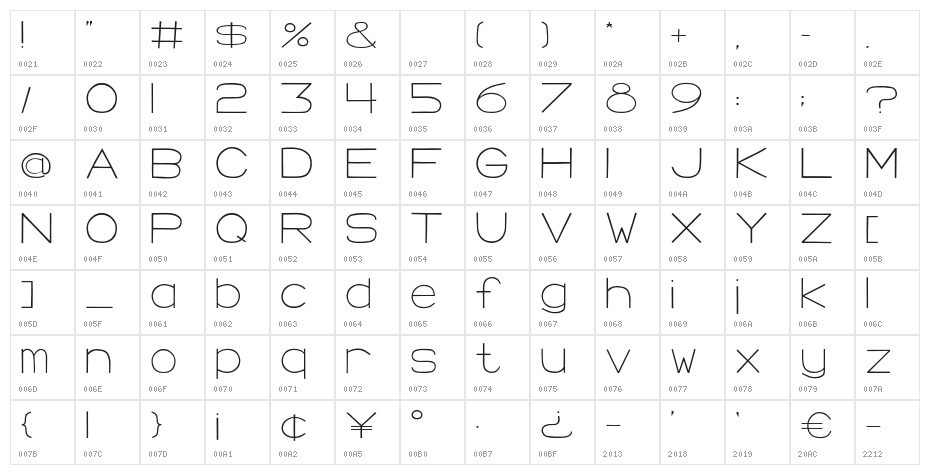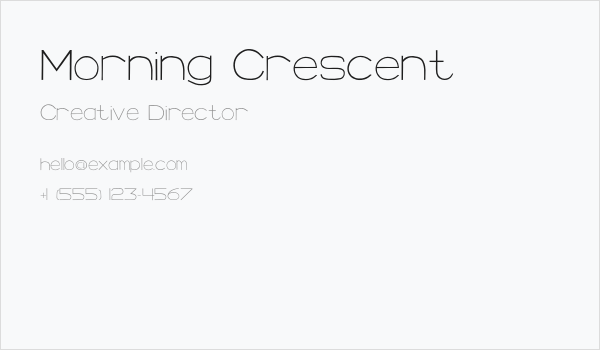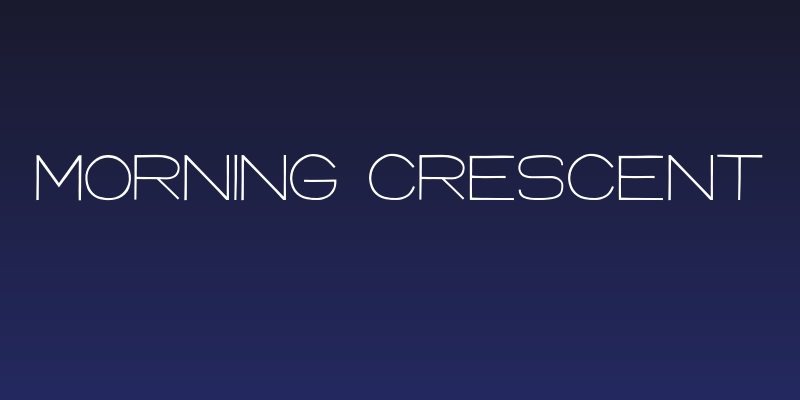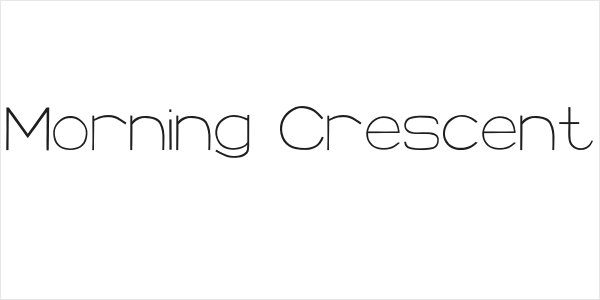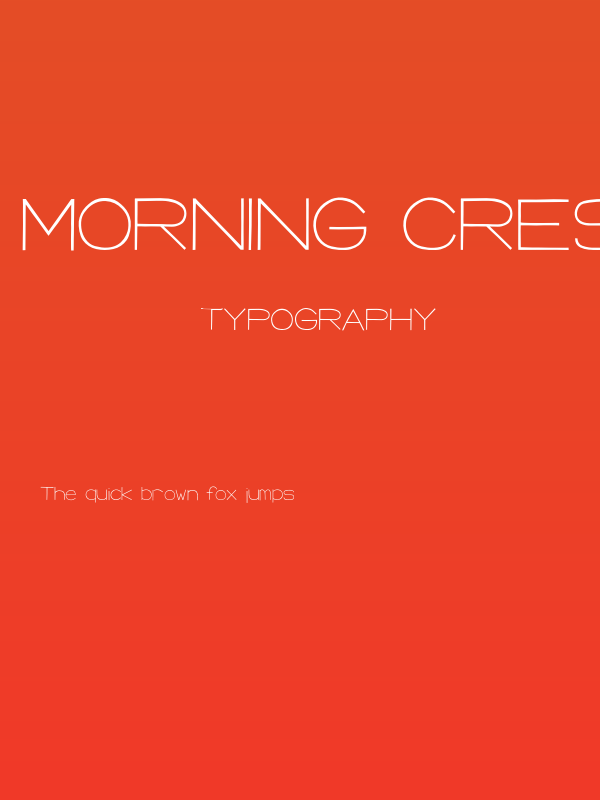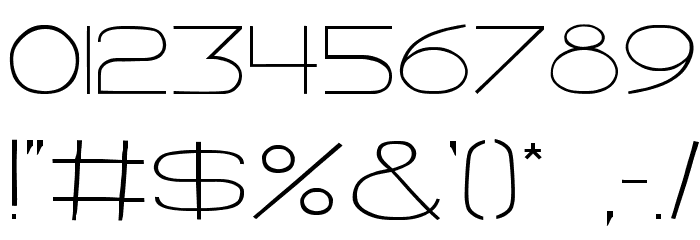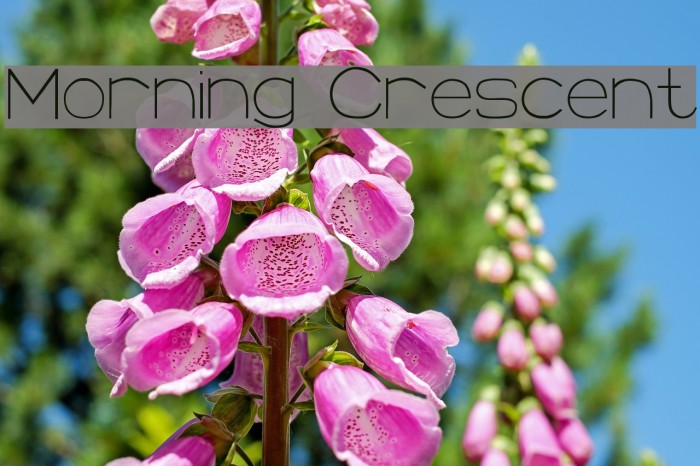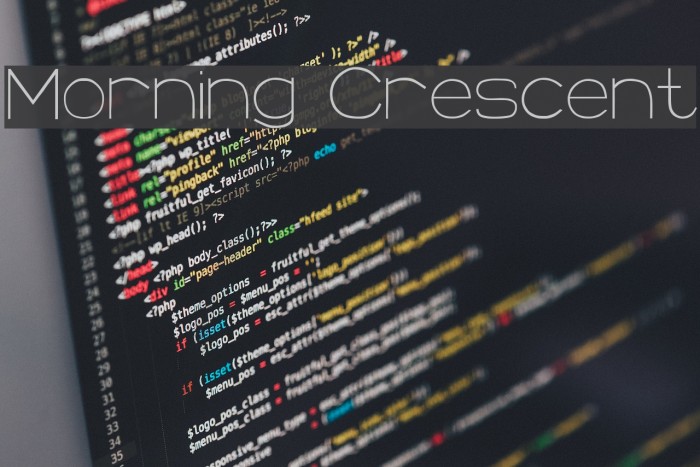
Morning Crescent Font
Morning Crescent Description
This font features a sleek, modern design with clean lines and a geometric structure. The characters are uniform in width, creating a harmonious and balanced appearance. The uppercase letters are bold and striking, while the lowercase letters maintain a consistent style that complements the overall aesthetic. The numerals and special characters are designed with the same attention to detail, ensuring readability and visual appeal. The font's minimalist design makes it versatile for various applications, from digital to print media.
| Use Case | Headlines, Logos, Digital media |
| Proposed Projects | Ideal for branding, advertising, digital media, and modern print designs. |